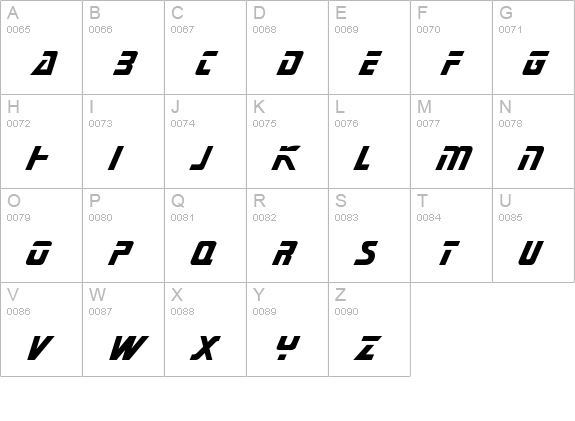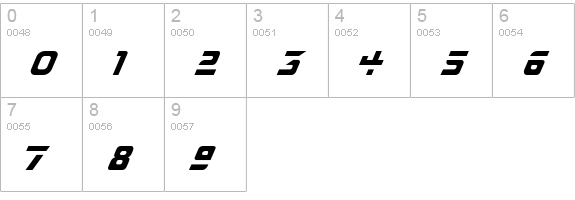
StarTrekTNGTitle Font Details
The StarTrekTNGTitle font is a stunning representation of the iconic title font used in the popular television series "Star Trek: The Next Generation." This font beautifully captures the futuristic and adventurous spirit of the show, making it a perfect choice for any fan or designer looking to add a touch of intergalactic flair to their projects. What makes the StarTrekTNGTitle font even more exciting is that it is freely available to download at FontsMarket.com. This means that you can easily access and use this incredible font without any cost, allowing you to unleash your creativity without any limitations. Whether you're designing a poster, creating a logo, or simply adding a unique touch to your personal projects, the StarTrekTNGTitle font is an excellent choice that won't break the bank. With its sleek and modern design, this font will transport you to the vast expanse of space and evoke the sense of wonder that the "Star Trek" series is known for. Each letter is meticulously crafted, with clean lines and a distinct futuristic vibe that captures the essence of the show perfectly. From the bold and eye-catching title font to the smaller, more delicate glyphs, every character in the StarTrekTNGTitle font is a work of art in itself. The versatility of this font is truly remarkable. Whether you're looking to create a striking headline or add a touch of elegance to your body text, the StarTrekTNGTitle font has got you covered. Its legibility and readability make it suitable for various design projects, ensuring that your message is effectively communicated to your audience. So why wait? Head over to FontsMarket.com and download the StarTrekTNGTitle font today. Take advantage of this fantastic opportunity to enhance your designs with a font that captures the essence of one of the most beloved science fiction series of all time. With its free availability, you can enjoy unlimited creative possibilities and boldly go where no designer has gone before!